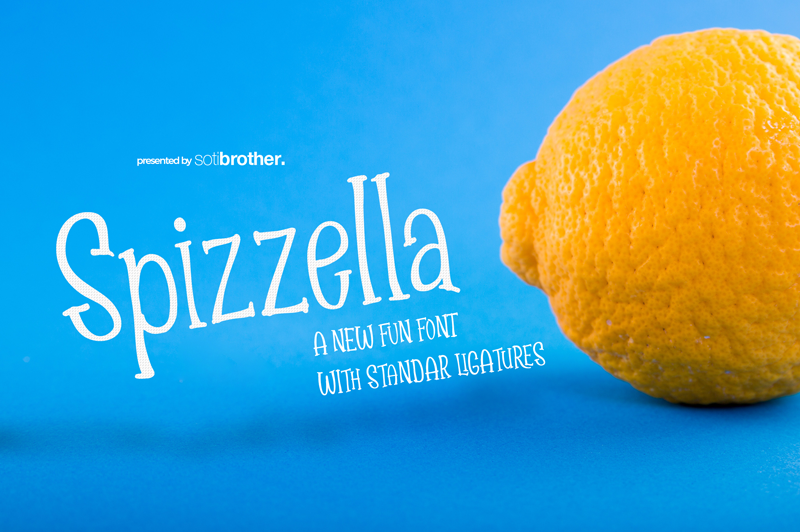
Spizzella Typeface
Spizzella font Fancy created by Sotibrother,Spizzella is a vibrant, cheerful, and fun font when words are fun. Spizzella will be sweet to you who are sassy and brave, a pleasant letter will be perfect for all designs like logo & branding, stationery, social media, advertising